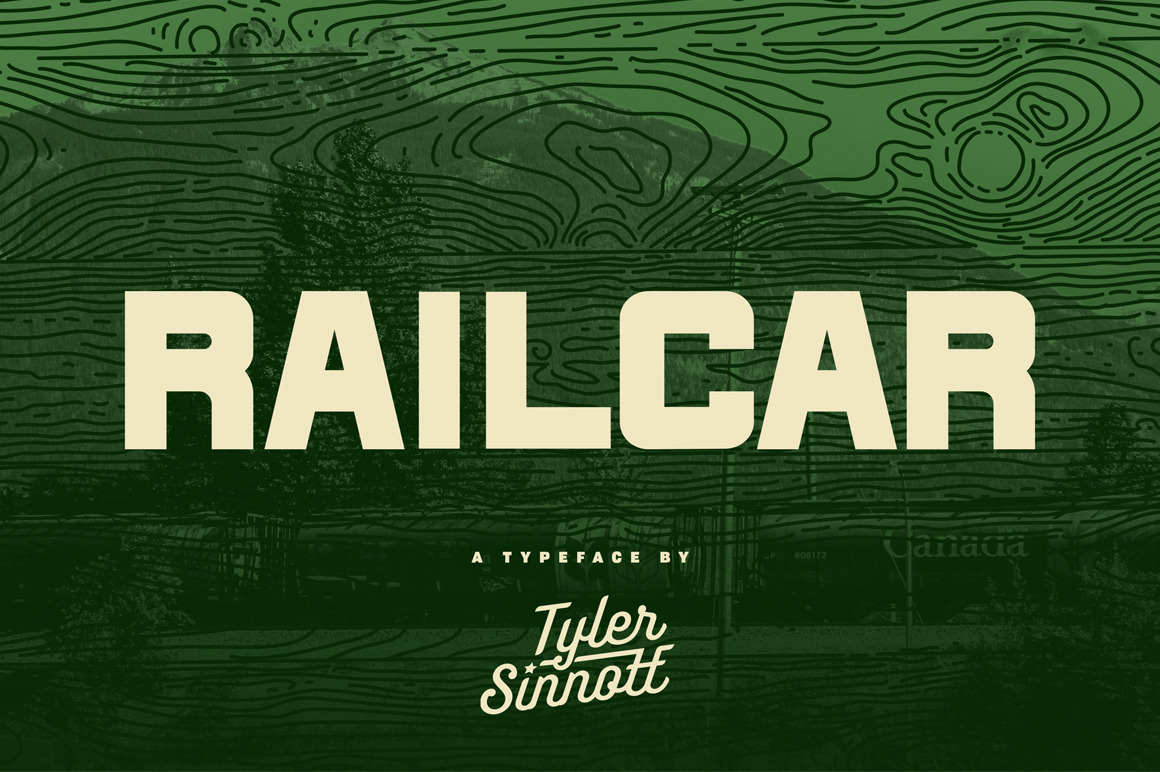
I'm incredibly excited to present my first ever display typeface! The Railcar Typeface was inspired by the typography seen on shipping containers. This will soon be updated with textured versions of the railcar typeface.